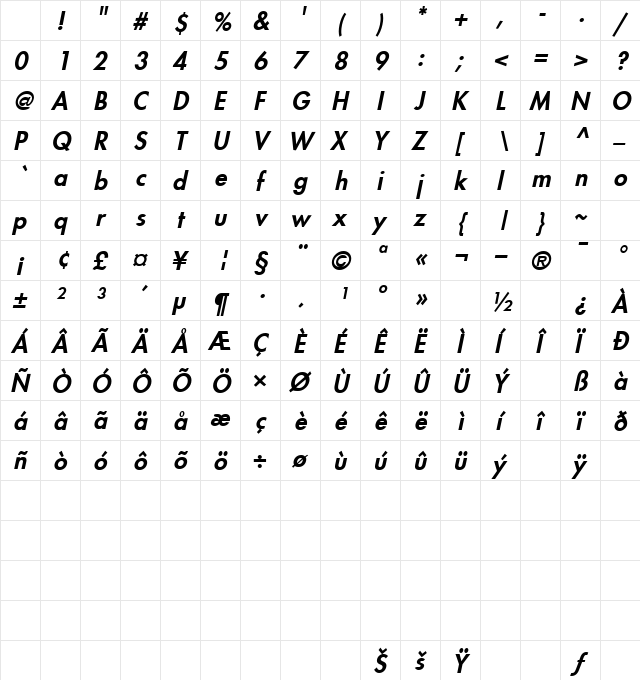
Recorder is a composed and adaptable typeface that performs quietly and consistently across a wide range of design contexts. The slanted form adds forward momentum and visual energy.
Pro Tip: Use Recorder for emphasis, pull quotes, and subheadings where its slanted energy can add rhythm to the layout.